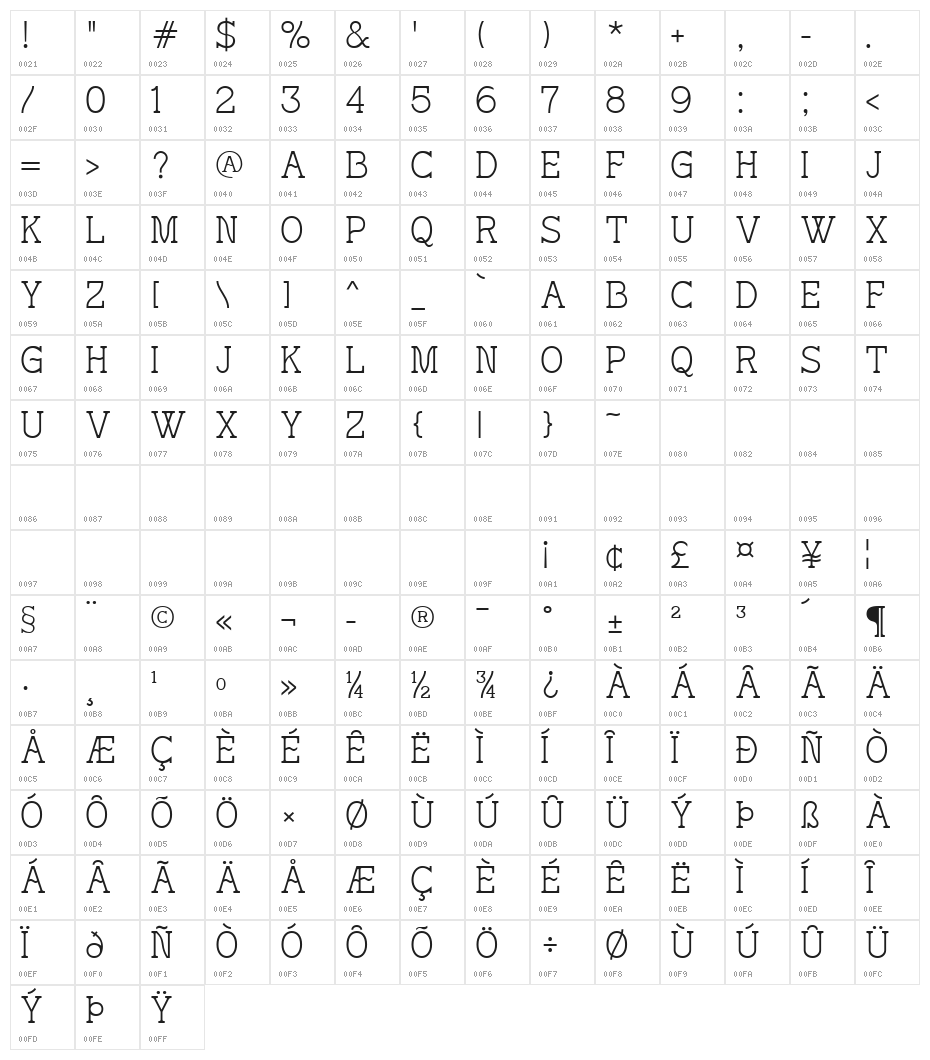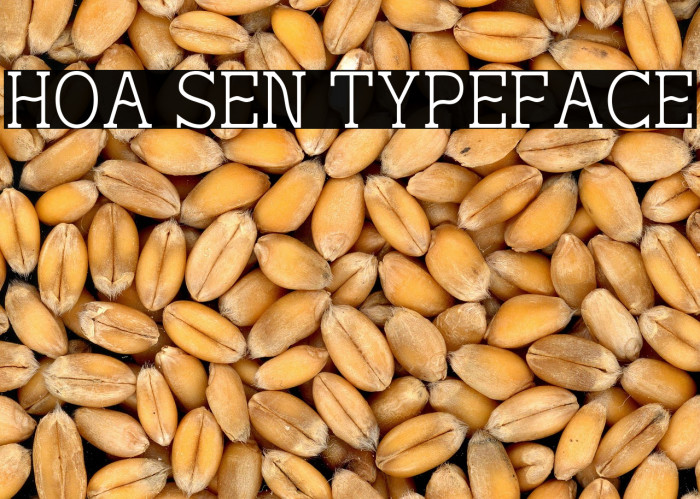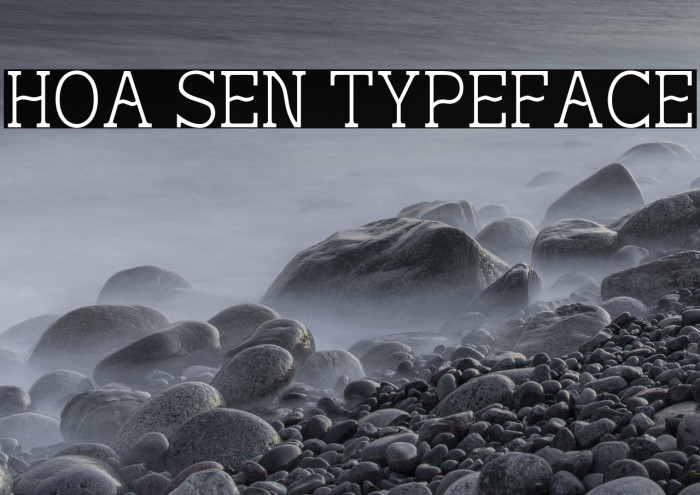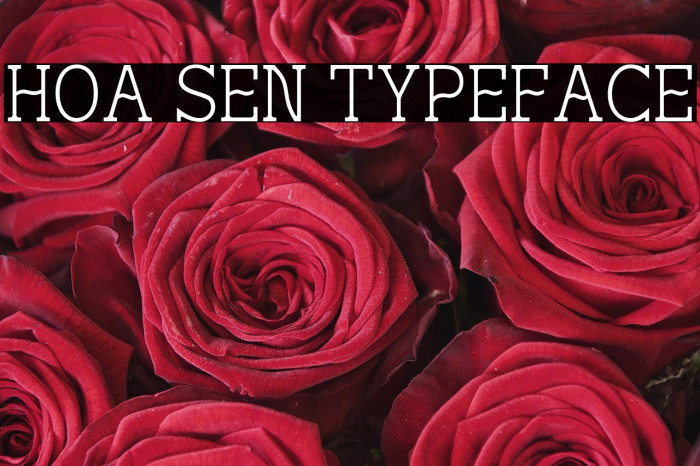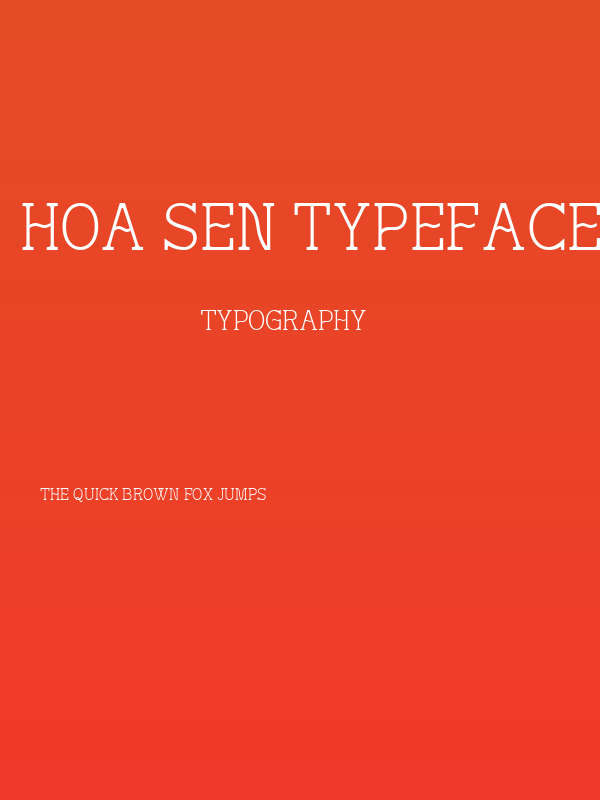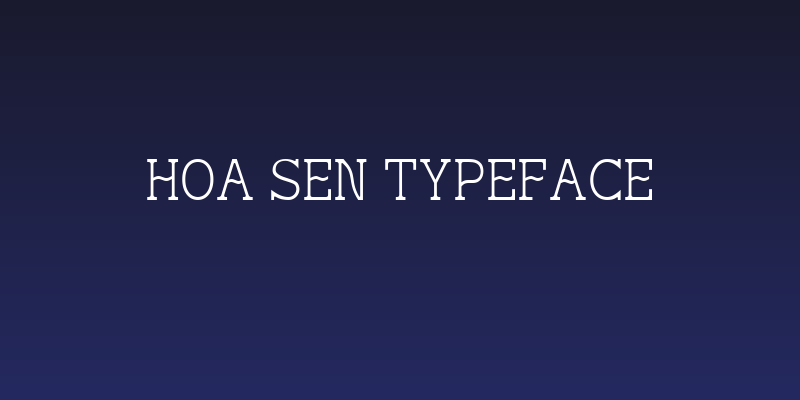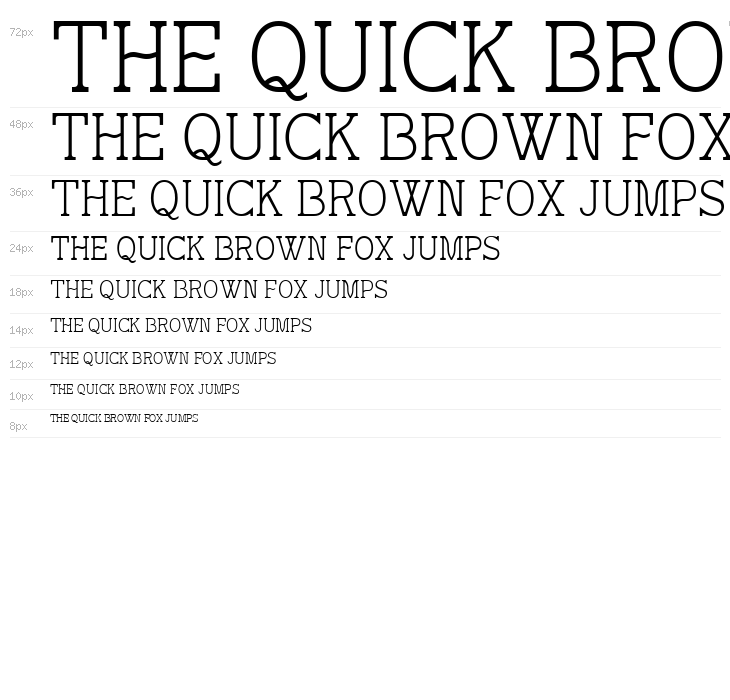
Hoa Sen Typeface Font
Hoa Sen Typeface Description
This typeface features a classic serif design with elegant and refined strokes. The characters are well-balanced, with a moderate contrast between thick and thin lines, giving it a sophisticated appearance. The uppercase letters are bold and commanding, while the lowercase letters maintain a consistent style that complements the overall design. The numerals are clear and legible, making them suitable for various applications. Special characters are thoughtfully designed, maintaining the font's cohesive aesthetic. This typeface is versatile, suitable for both digital and print media, and can be used to convey a sense of tradition and reliability.
| Proposed Projects | Ideal for book covers, editorial design, branding, and formal invitations. |